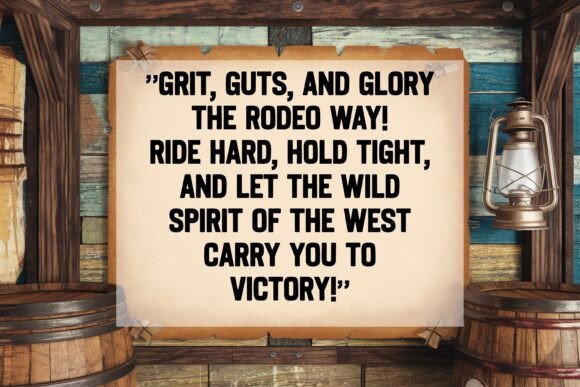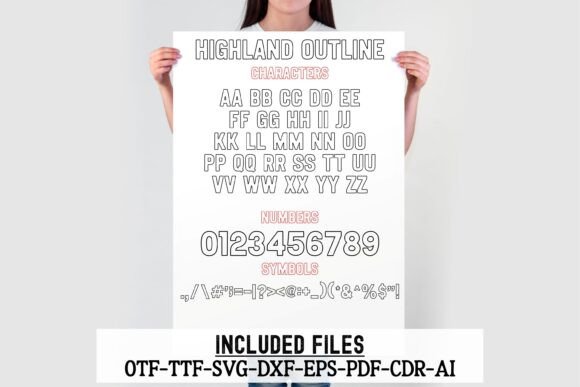
Highland Bundle Font
Introducing the Highland Font Bundle, a trio of robust typefaces carefully crafted for your rustic and vintage needs. These fonts – Highland Bold, Highland Grit, and Highland Outline – are perfectly suited for western themes, or to add that old-world charm to your farmhouse-inspired artwork. Use Highland Bold to make a strong, powerful statement. Leverage the aged, distressed aesthetics of Highland Grit to evoke a sense of nostalgia, or embrace the chic versatility of Highland Outline, apt for layering or engraving. This font collection is a must-have for Cricut, Silhouette, Procreate, sublimation, and digital design projects. It’s sure to create eye-catching text for t-shirts, logos, handmade crafts, and home decor.